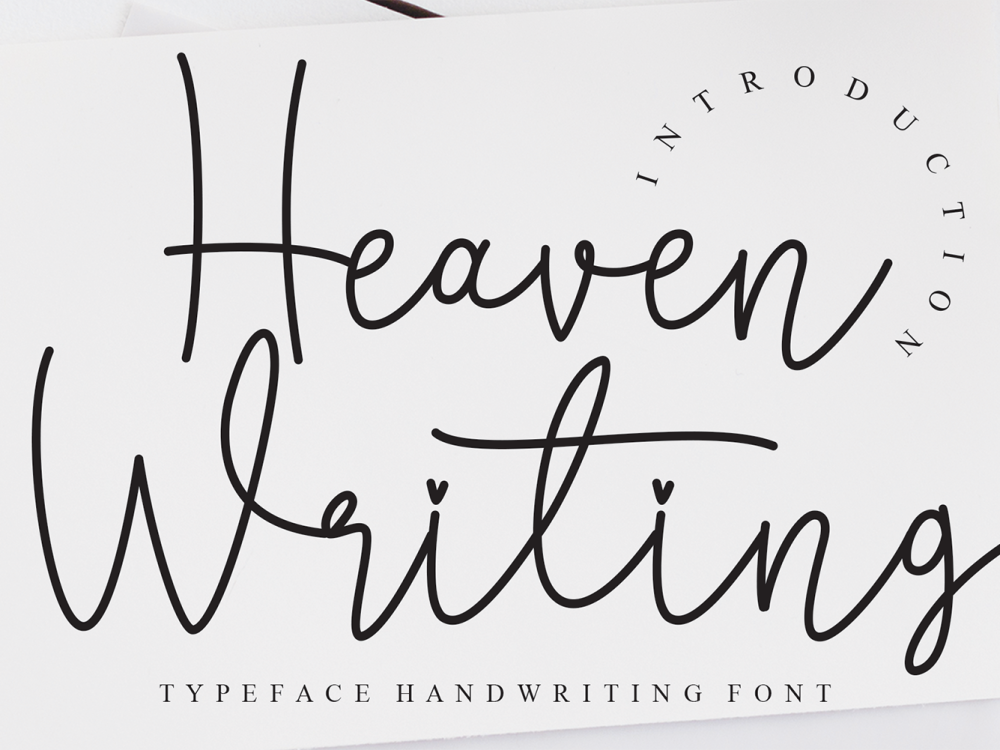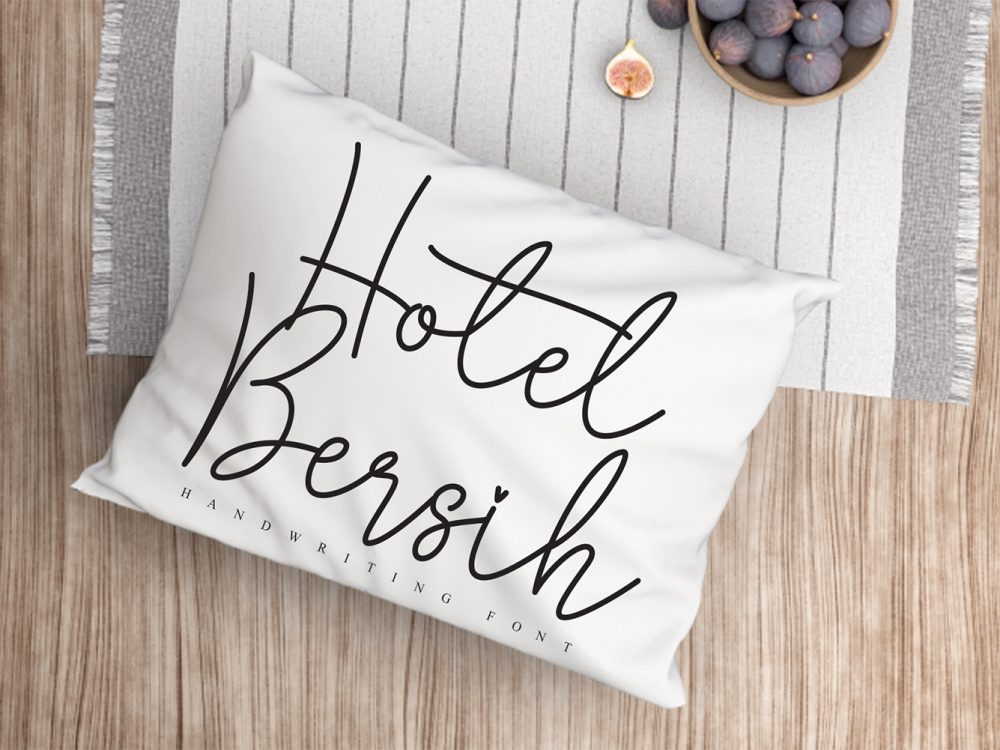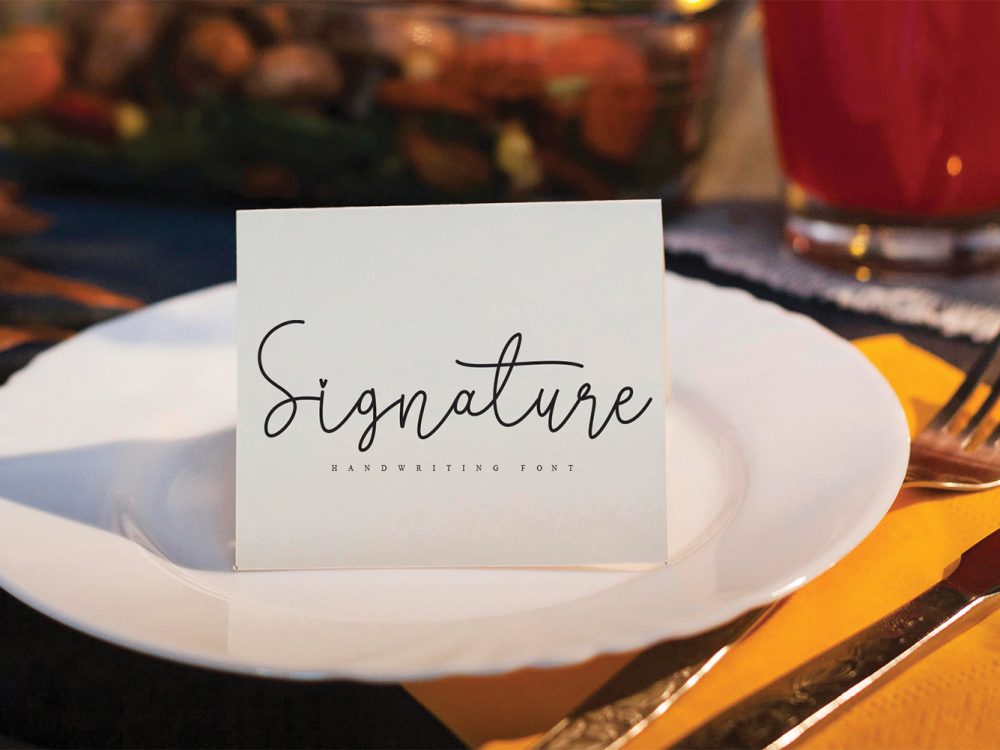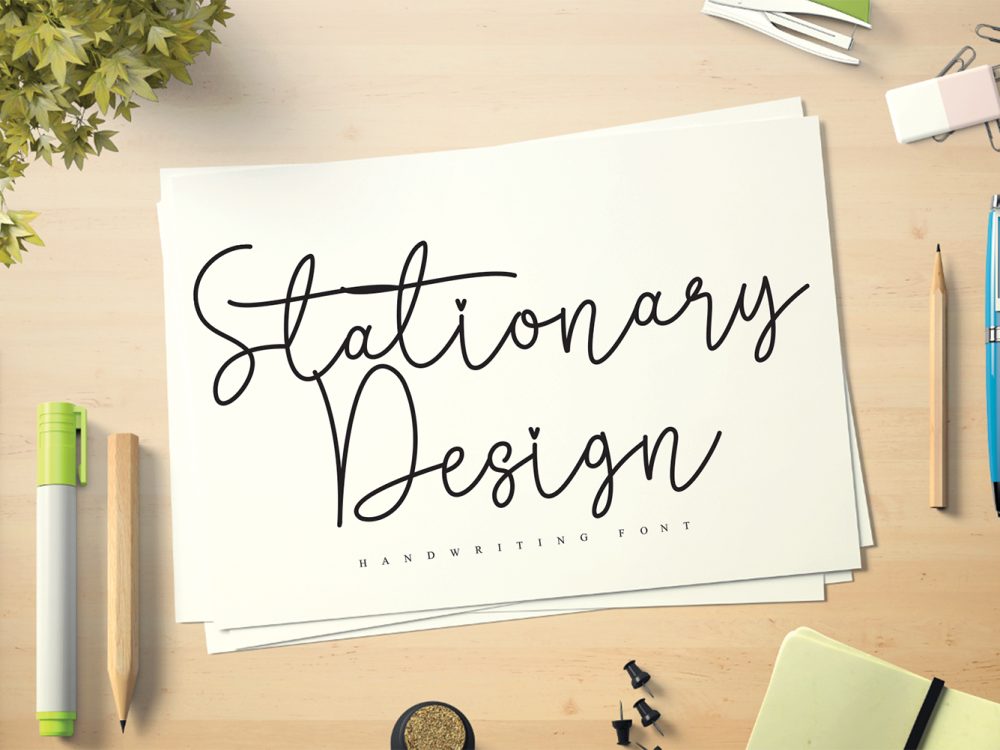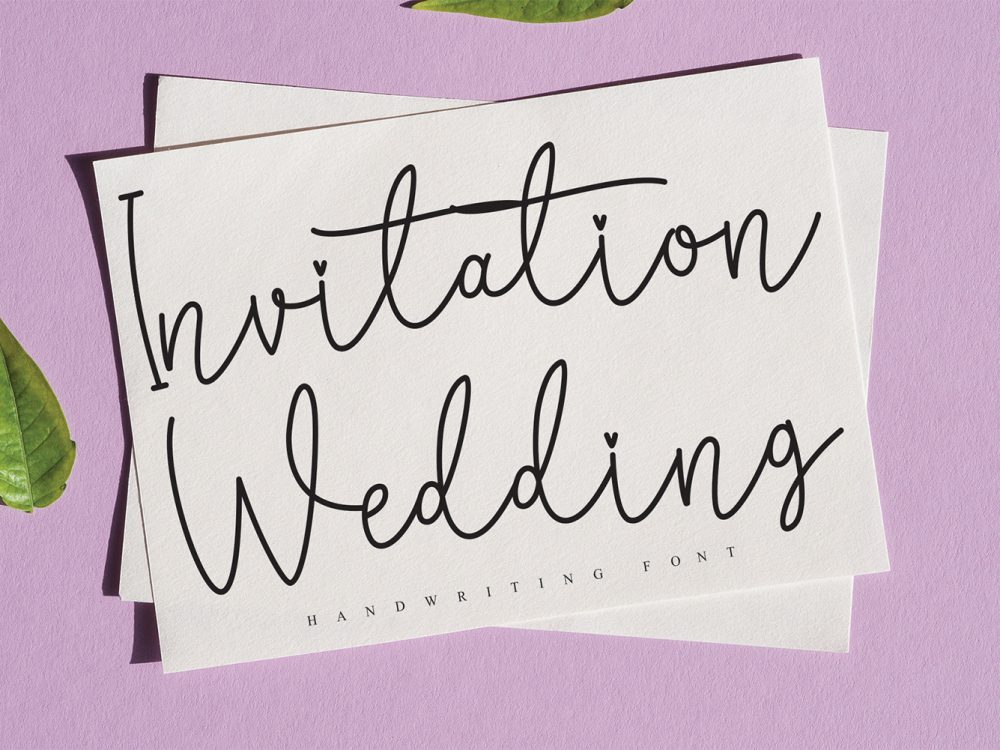
Heaven Writing Free Font
Heaven Writing Free Font is a graceful and organic handwritten typeface. With a touch of whimsy and a dash of quirkiness, this font has the power to illuminate all your design creations. Feel assured as you incorporate it into your projects, and watch your affection for the outcomes grow exponentially. If you like it don’t forget to check out the full version.